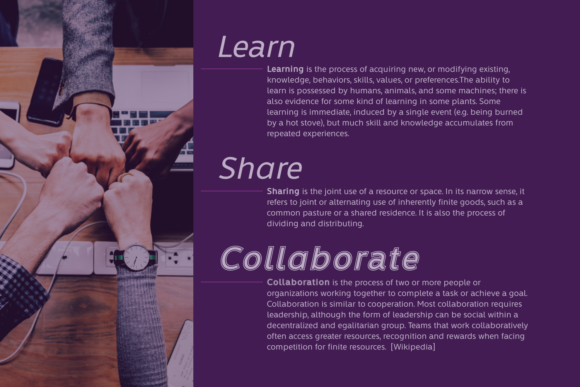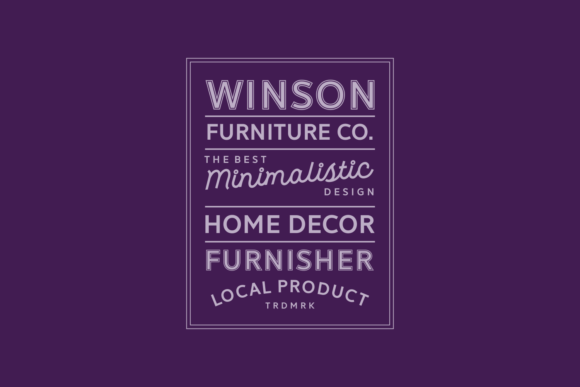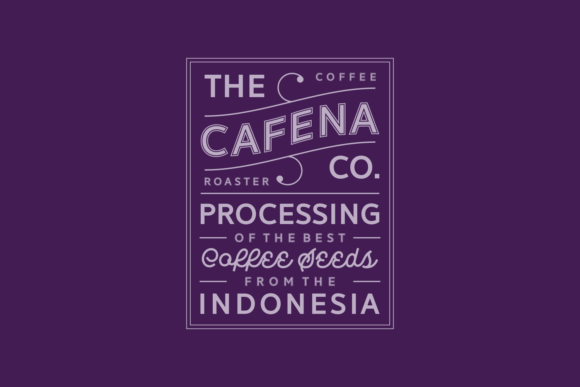
Introduction to Learn Share Collaborate Family Font
Learn Share Collaborate is a clean sans serif family.
It has a great readability and comes in a regular, Italic, bold, bold-Italic, inout, and inout-Italic version With itโs six styles, you can use it over and over again and create an unique design every time u use it.
Key Features of Learn Share Collaborate Family Font
Why Choose Learn Share Collaborate Family Font?
Learn Share Collaborate Family Font offers exceptional quality and versatility, making it a valuable addition to your design toolkit. Whether you’re creating for personal projects or commercial use, Learn Share Collaborate Family Font delivers professional results.